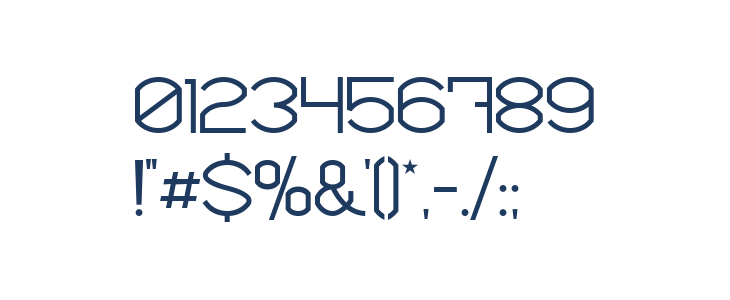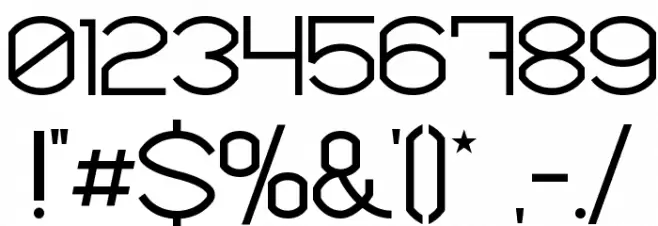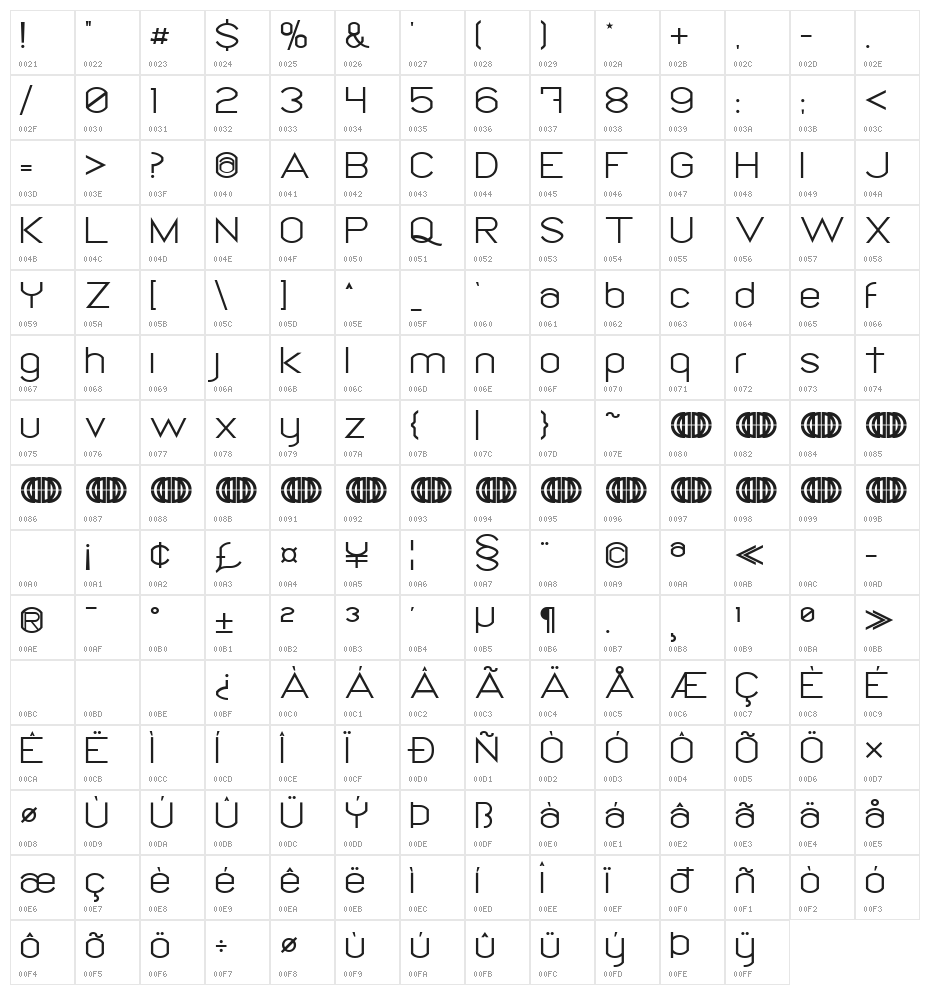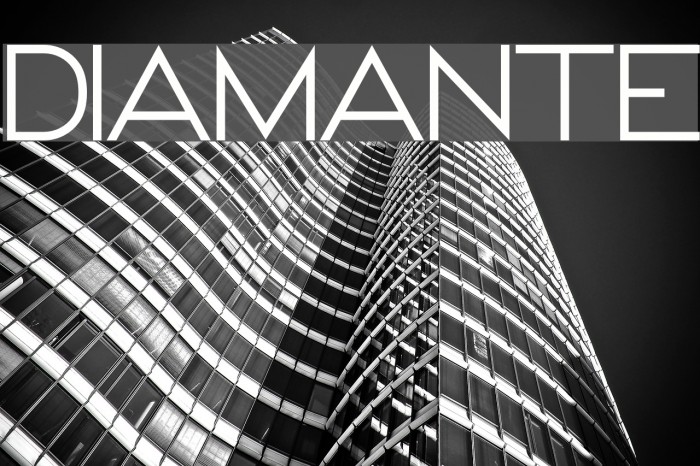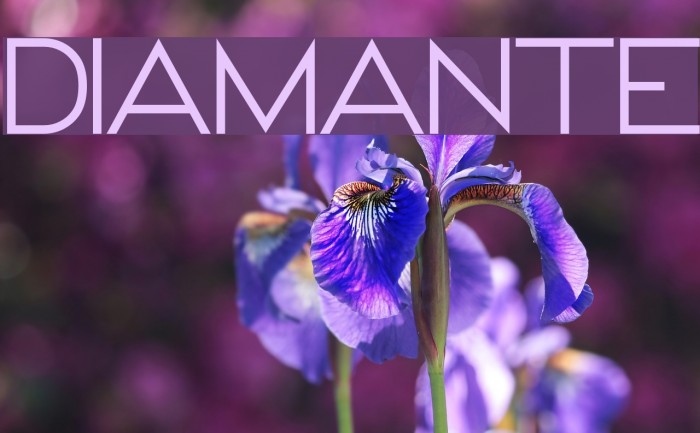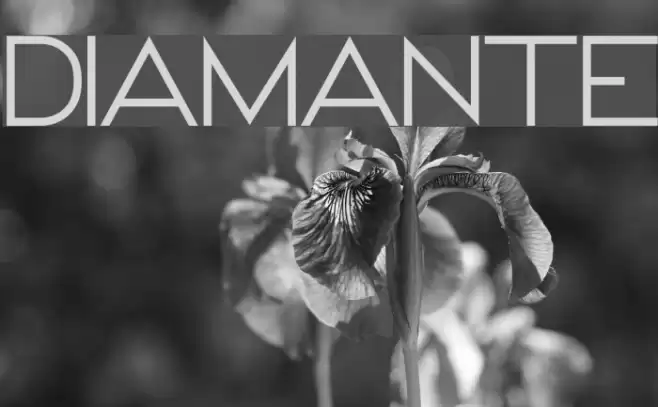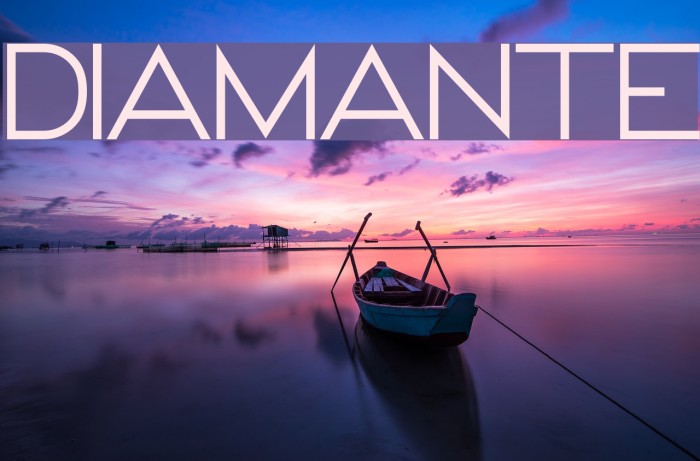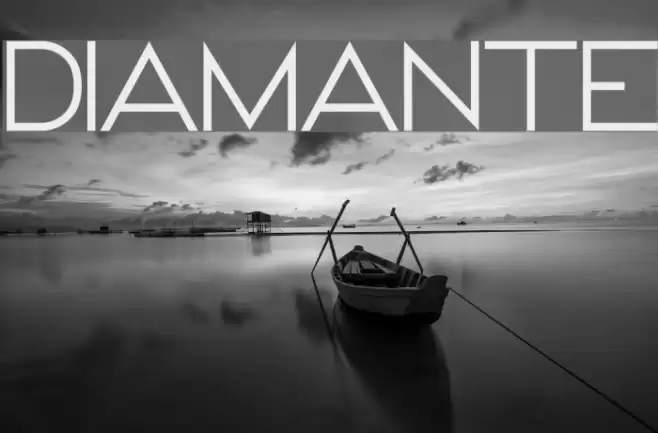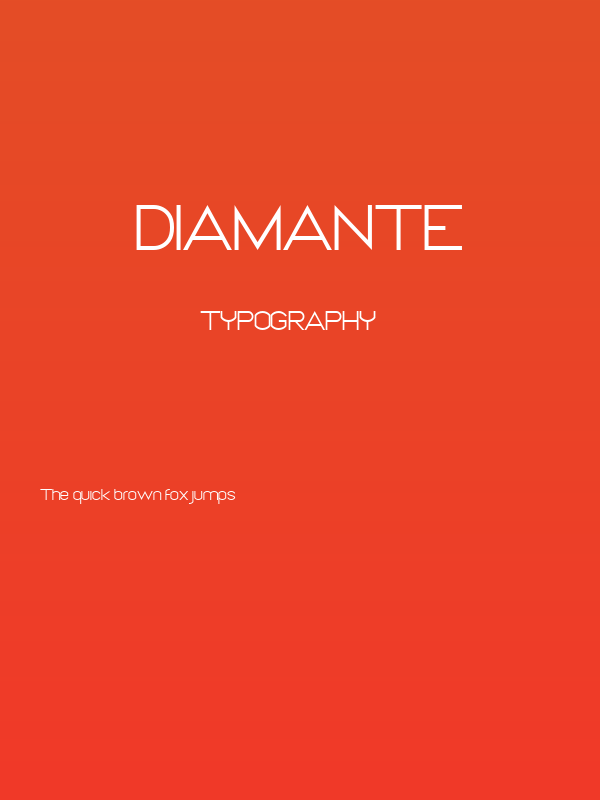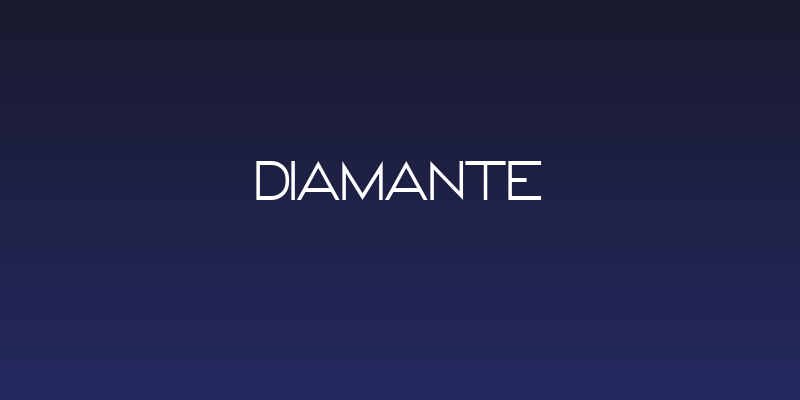
DIAMANTE Font
DIAMANTE Description
This font features a geometric and modern design, characterized by clean lines and a minimalist aesthetic. The uppercase letters are bold and angular, with a consistent stroke width that gives them a strong, structured appearance. The lowercase letters maintain the geometric theme, offering a harmonious balance between curves and straight lines. Numbers are designed with the same precision, ensuring readability and style. Special characters are crafted to match the overall sleek and contemporary look, making this font versatile for various design needs.
| Proposed Projects | Ideal for branding, logos, headlines, and modern web design projects. |